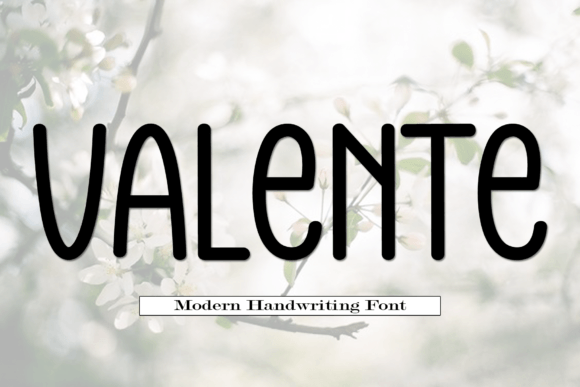
Unleash your creativity with Valente Font, a script font brimming with elegance and charm. Inspired by the beauty of handwriting, Valente captures the essence of handwritten messages, adding a personal touch to your designs.
Whether you're crafting wedding invitations, thank-you cards, heartfelt quotes, or eye-catching logos, Valente is the perfect font to convey your heartfelt messages. Its flowing lines and graceful curves bring a touch of sophistication to your designs, making them stand out from the ordinary.
With Valente, you can effortlessly create designs that captivate and resonate with your audience. Its versatile style complements a wide range of design projects, from business cards and greeting cards to social media posts and marketing materials.